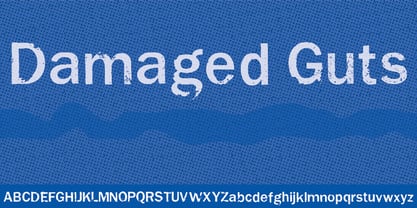
Damaged Guts Font
Damaged Guts Font is perfect for horror-themed posters, album covers, gaming graphics, Halloween designs, and edgy branding projects. Its distressed, grungy style adds a raw, intense vibe to any creative work.
What makes Damaged Guts Font exciting is its bold, rugged letterforms that convey a sense of chaos and energy, making your text instantly eye-catching and memorable. The font’s unique design ensures your projects stand out in a crowd.
The Damaged Guts Font family includes Regular, Bold, and Distressed variations, giving designers flexibility to create dramatic and visually striking typographic compositions.